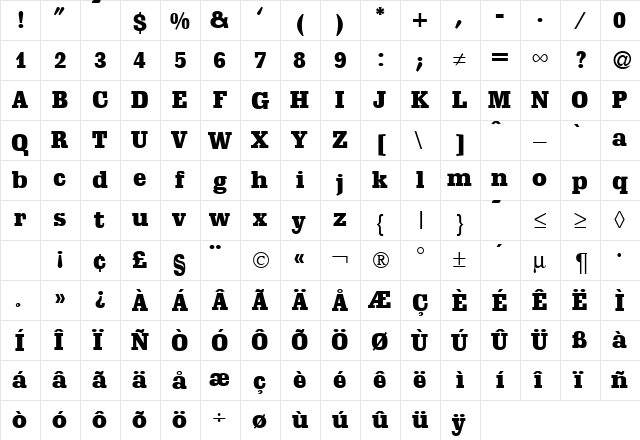
SchadowHeavy Regular
SchadowHeavy takes a measured approach to typography — its balanced proportions and neutral character make it a reliable workhorse for both digital and print work.